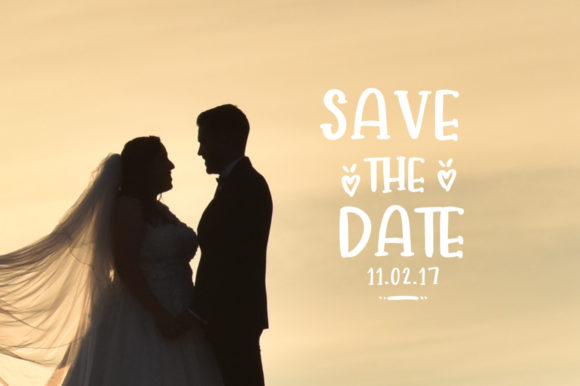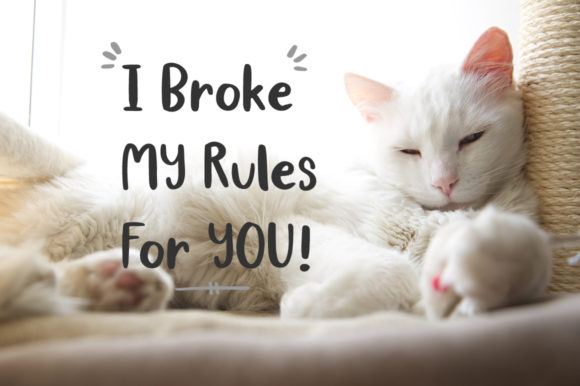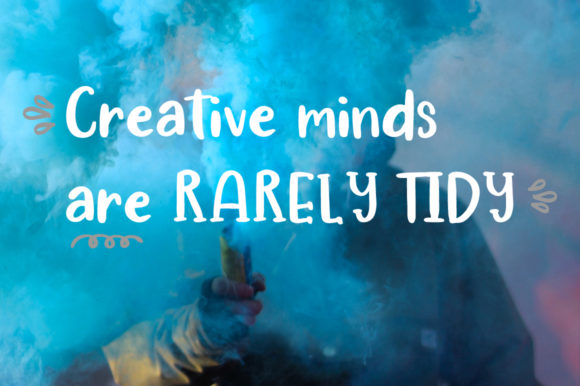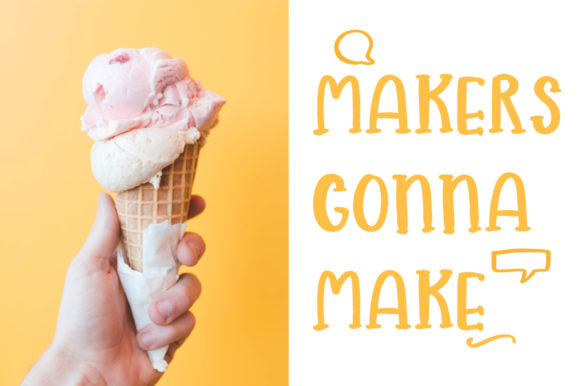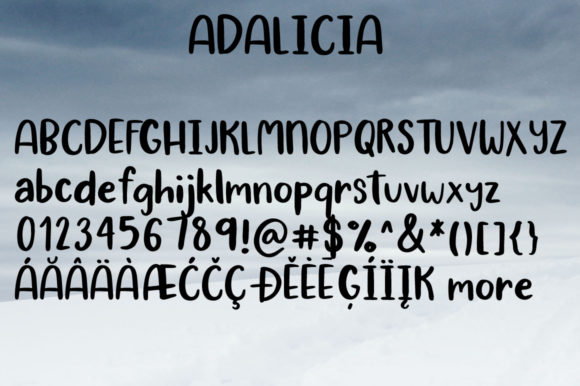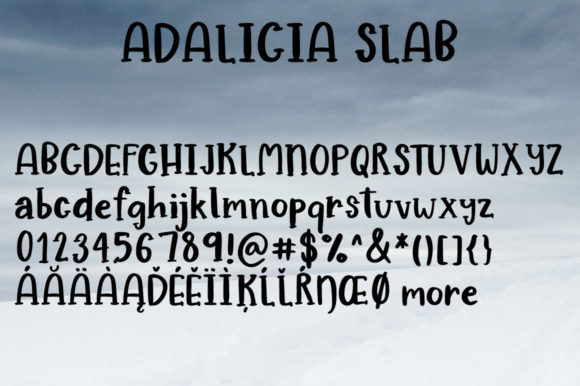
Introducing the Adalicia Font: A Beautiful Handwritten Slab Serif Font
The Adalicia Slab is a beautiful handwritten font that has been making waves in the design community. Its elegant, yet striking style makes it perfect for giving a personal touch to your designs. Whether you’re a designer, crafter, or simply someone who appreciates beautiful typography, the Adalicia Slab is definitely worth checking out.
What is the Adalicia Slab?
The Adalicia Slab is a type of handwritten font that is characterized by its elegant and refined style. It is a slab serif font, which means that it has small lines or flourishes at the end of each letter. This gives the font a distinctive look that is both classic and modern.
The Adalicia Slab is a versatile font that can be used for a wide range of design projects. Its elegant style makes it perfect for use in wedding invitations, greeting cards, and other formal designs. At the same time, its playful and whimsical feel makes it suitable for use in more casual designs, such as posters, flyers, and social media graphics.
Key Features of the Adalicia Slab
So what sets the Adalicia Slab apart from other fonts? Here are a few key features that make it stand out:
- Elegant and refined style: The Adalicia Slab has a sophisticated and elegant feel that makes it perfect for use in formal designs.
- Handwritten feel: Despite its refined style, the Adalicia Slab still has a handwritten feel that gives it a personal and unique touch.
- Slab serif design: The font’s slab serif design gives it a distinctive look that is both classic and modern.
- Versatile: The Adalicia Slab can be used for a wide range of design projects, from formal wedding invitations to more casual social media graphics.
How to Use the Adalicia Slab in Your Designs
So how can you use the Adalicia Slab in your designs? Here are a few ideas to get you started:
- Wedding invitations: The Adalicia Slab is perfect for use in wedding invitations, as its elegant style and handwritten feel make it a great choice for formal events.
- Greeting cards: The font’s refined style and versatility make it a great choice for use in greeting cards, whether you’re creating birthday cards, holiday cards, or get-well cards.
- Posters and flyers: The Adalicia Slab’s playful and whimsical feel makes it a great choice for use in posters and flyers, whether you’re advertising a concert, a sale, or a special event.
- Social media graphics: The font’s elegant style and versatility make it a great choice for use in social media graphics, whether you’re creating graphics for Instagram, Facebook, or Twitter.
Tips for Pairing the Adalicia Slab with Other Fonts
When using the Adalicia Slab in your designs, you may want to pair it with other fonts to create a unique and visually appealing look. Here are a few tips for pairing the Adalicia Slab with other fonts:
- Pair with a sans serif font: Pairing the Adalicia Slab with a sans serif font, such as Arial or Helvetica, can create a nice contrast between the elegant, handwritten feel of the Adalicia Slab and the clean, modern feel of the sans serif font.
- Pair with a script font: Pairing the Adalicia Slab with a script font, such as Pacifico or Great Vibes, can create a beautiful and elegant look that is perfect for formal designs.
- Pair with a serif font: Pairing the Adalicia Slab with a serif font, such as Times New Roman or Georgia, can create a classic and sophisticated look that is perfect for use in formal designs.
The Adalicia Slab is a beautiful handwritten font that is perfect for giving a personal touch to your designs. Its elegant and refined style makes it a great choice for use in formal designs, while its playful and whimsical feel makes it suitable for use in more casual designs. Whether you’re a designer, crafter, or simply someone who appreciates beautiful typography, the Adalicia Slab is definitely worth checking out.